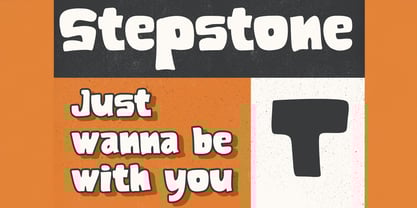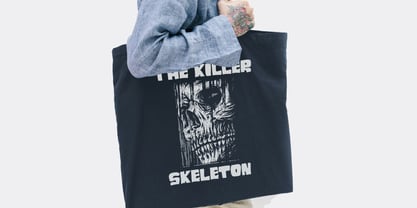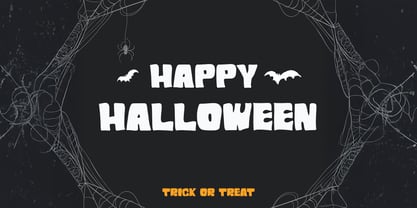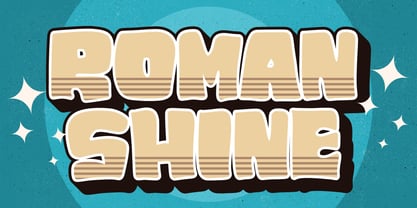
The Roman Shine Font Family was designed by Virgiawan Listanto and published by Stringlabs Creative Studio. Roman Shine contains 1 styles. More about this family
Step into elegance with a modern twist. ROMAN SHINE is a bold and confident display sans font that blends timeless Roman structure with contemporary simplicity. Designed to make statements, this font delivers clarity, strength, and a touch of shine to your headlines, logos, and editorial layouts.